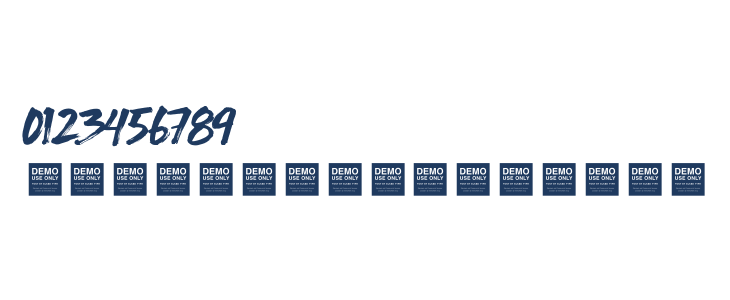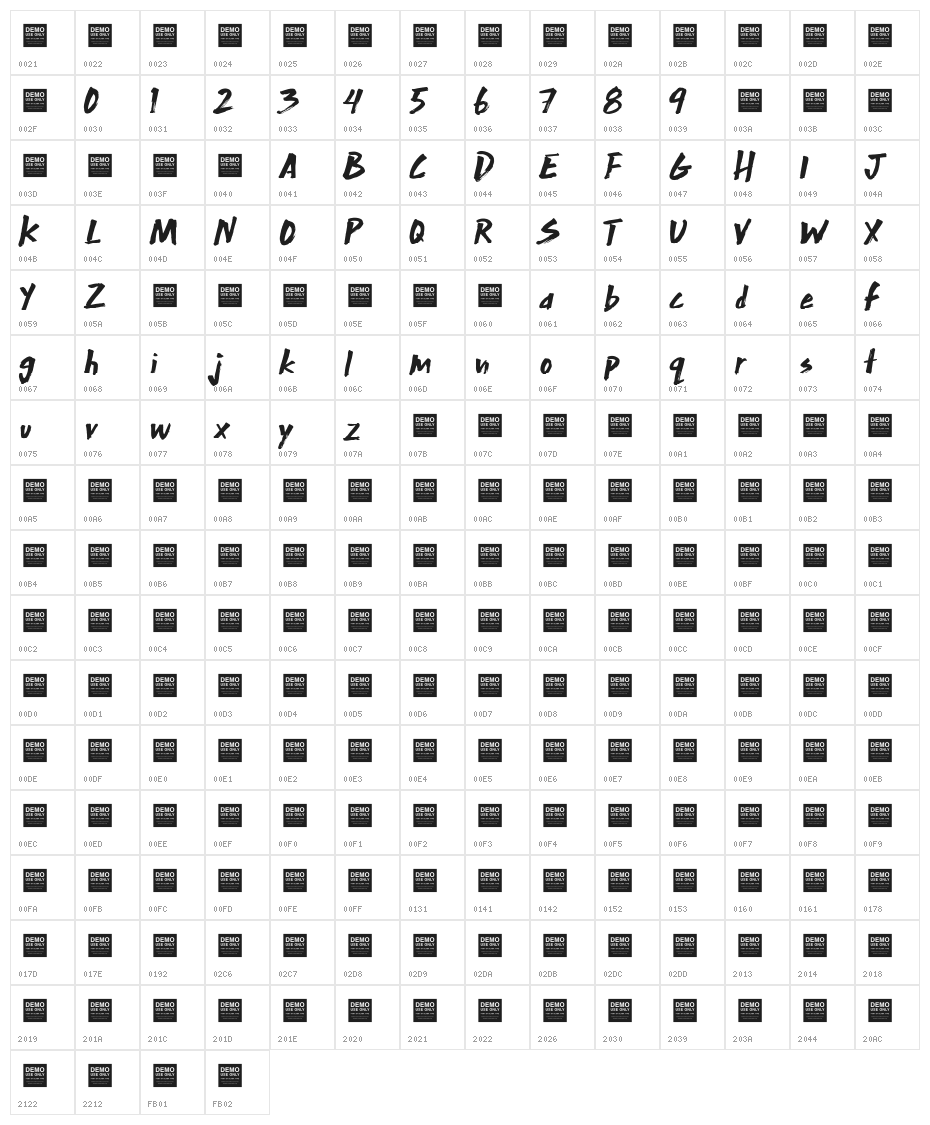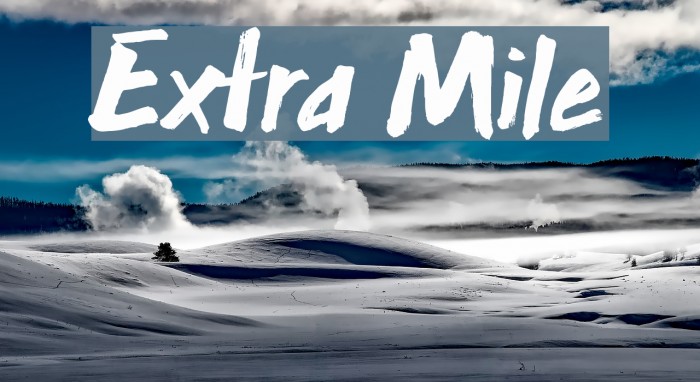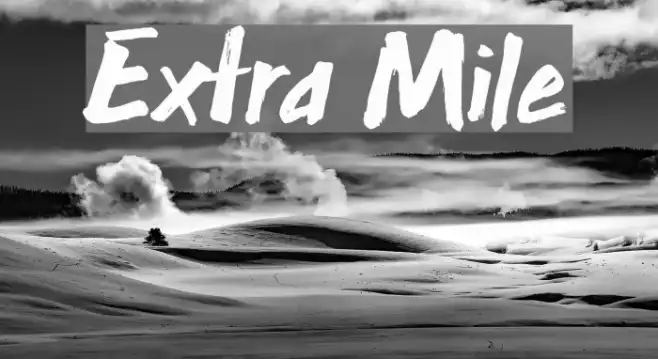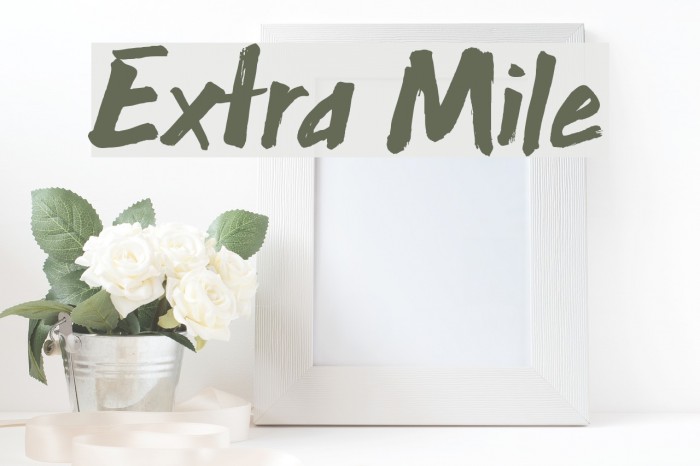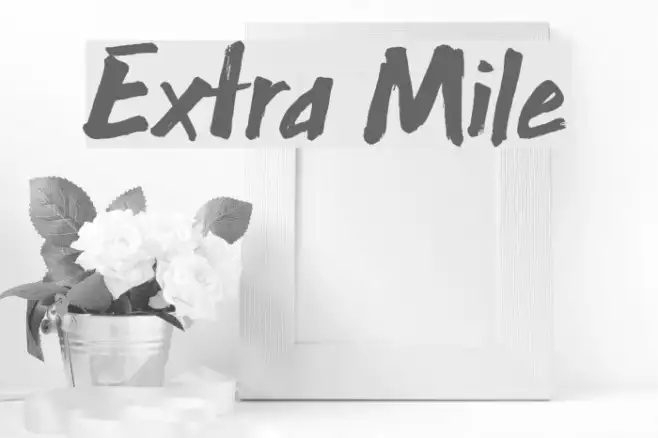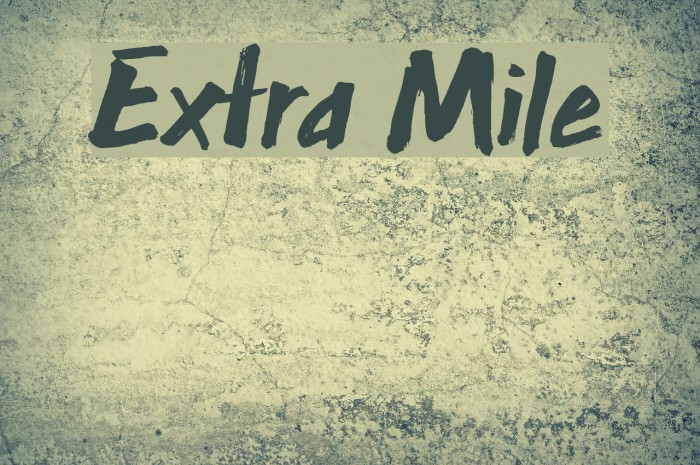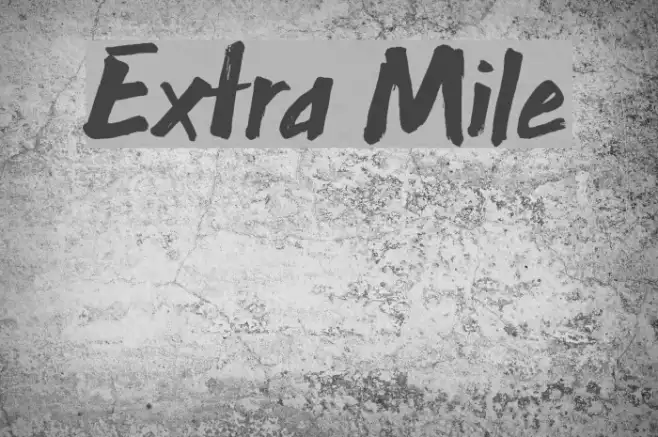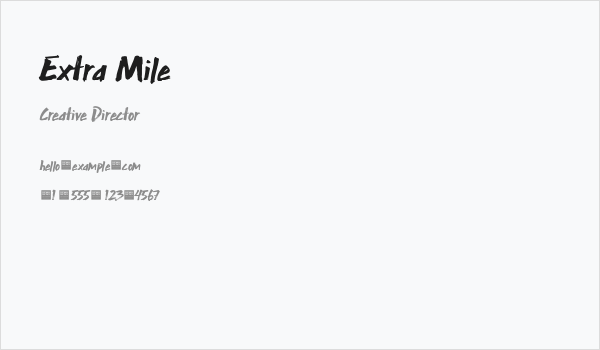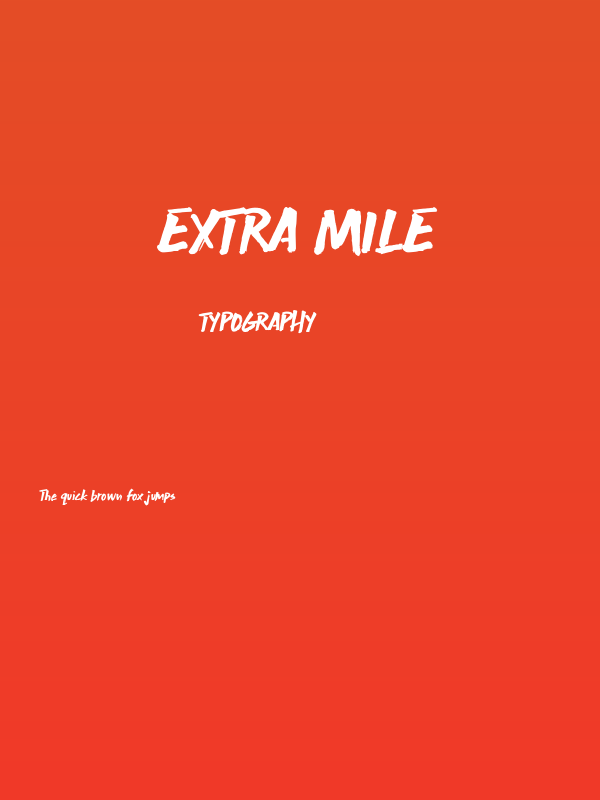
Extra Mile Font
Extra Mile Description
This font exudes a bold and energetic style, characterized by its brush-like strokes and dynamic movement. The letters are crafted with a sense of spontaneity, resembling hand-painted calligraphy. Each character has a unique flair, with varying stroke thicknesses that add to its lively appearance. The uppercase letters are assertive and impactful, while the lowercase letters maintain a consistent flow. The numerals are equally expressive, matching the overall aesthetic. This font's artistic nature makes it ideal for projects that require a personal touch or a creative edge.
| Proposed Projects | Ideal for branding, poster design, album covers, and any project seeking a creative, artistic touch. |